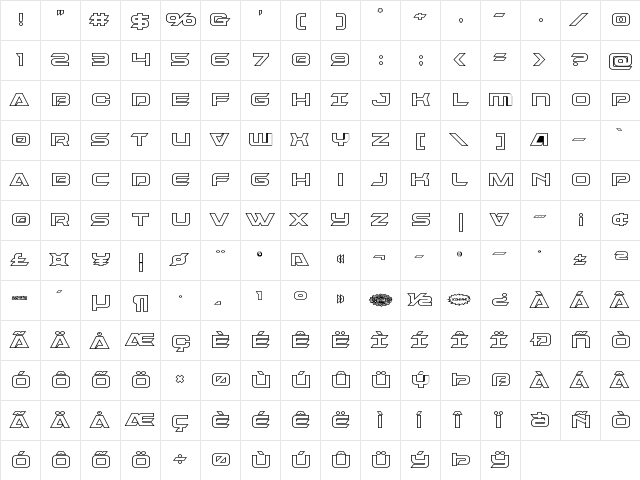
Dameron Bold Outline Bold Outline
Design Context for Dameron Bold Outline Typeface
Dameron Bold Outline is built around its visual character rather than neutral utility — its distinctive forms are designed to make an impression at display sizes. The heavy weight commands attention and anchors typographic hierarchies.
Font Pairing: Pair with a clean neutral sans-serif for body copy to let Dameron Bold Outline's character lead without overwhelming the composition.
Pro Tip: Treat Dameron Bold Outline as the centrepiece of your typographic hierarchy. One strong heading set in a decorative face can carry an entire layout.